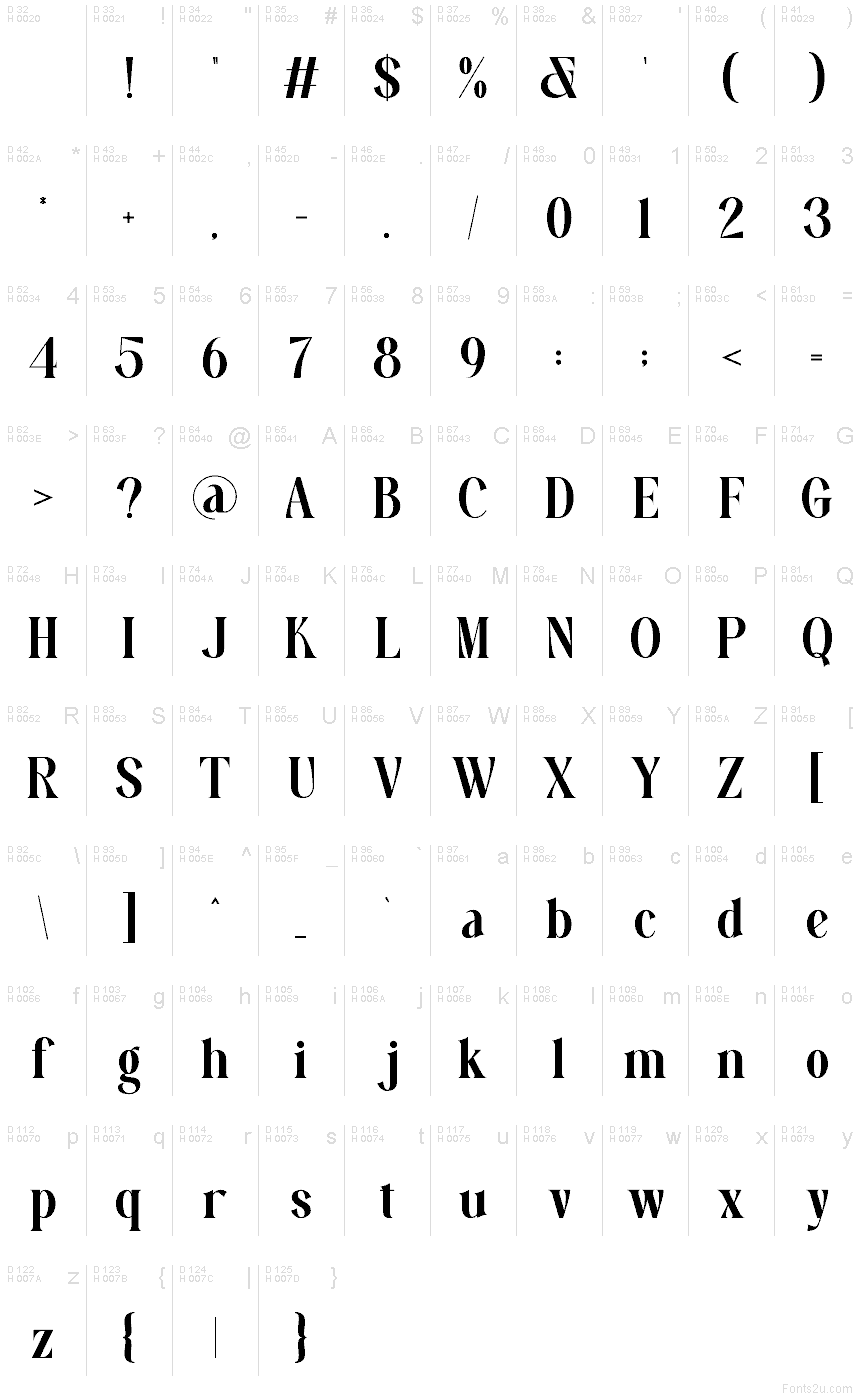
Afira
Afira font by Ermedia Studio is a free distorted serif display font that twists high-contrast elegance into something delightfully off-kilter. Heavy inky stems collide with razor-fine hairlines, while cutaway curves and sly, scooped serifs give each word a sculpted, almost liquid shimmer. It’s refined at first glance, then surprising—the kind of character that steals attention without shouting.
Using Afira, headlines feel editorial and fashion-forward, yet slightly subversive. It shines on boutique logos, magazine covers, luxury posters, album art, beauty packaging, and event invitations. This free font works beautifully when set large; pair it with a clean grotesque sans for body copy and add a touch of tracking to let those dramatic shapes breathe.